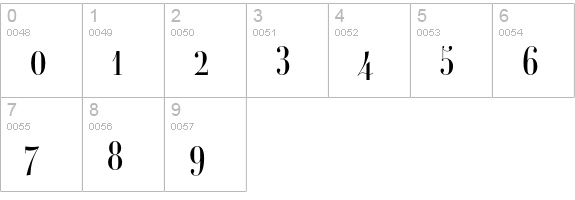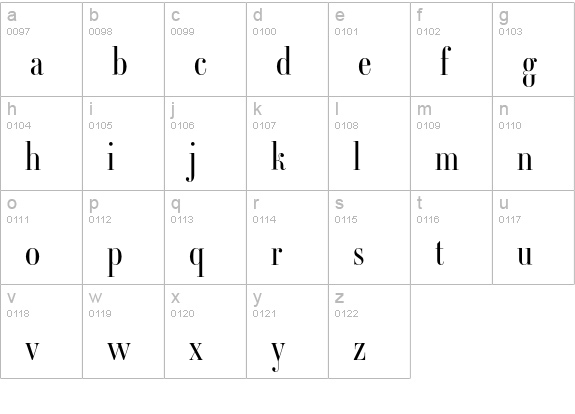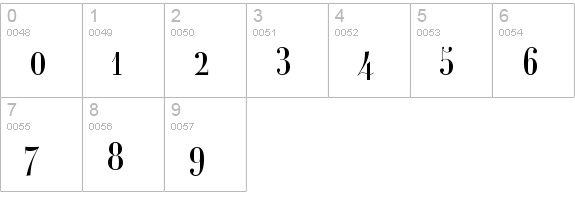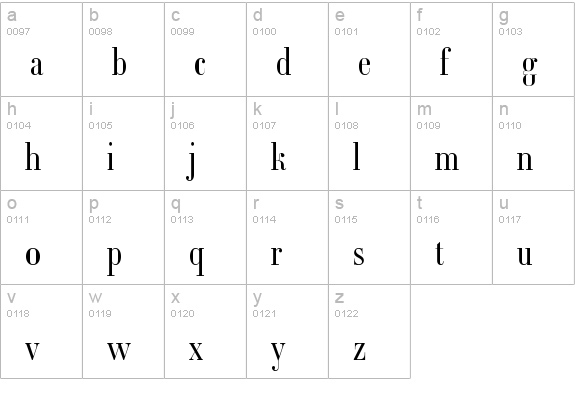
Ambroise Firmin Light Font Details
Ambroise Firmin Light is a refined, elegant variant in the Ambroise typeface family \xE2\x80\x94 well suited to elegant body text, refined sub-headings, and luxury branding.
Ambroise Firmin Light font is a stunning and elegant typeface that exudes sophistication and modernity. With its delicate serifs and clean lines, this font is perfect for adding a touch of refinement to any design project. The light weight of Ambroise Firmin Light gives it a delicate and airy appearance, making it ideal for use in branding, editorial design, and more. What sets Ambroise Firmin Light apart is that it is not only a beautiful font, but it is also free to download. You can easily access this exquisite typeface at FontsMarket.com, where you can unleash your creativity and elevate your designs with this timeless and versatile font. Whether you're working on a logo, website, or print materials, Ambroise Firmin Light will bring a touch of sophistication to your projects. Download it today and enhance your design work with this exceptional typeface.